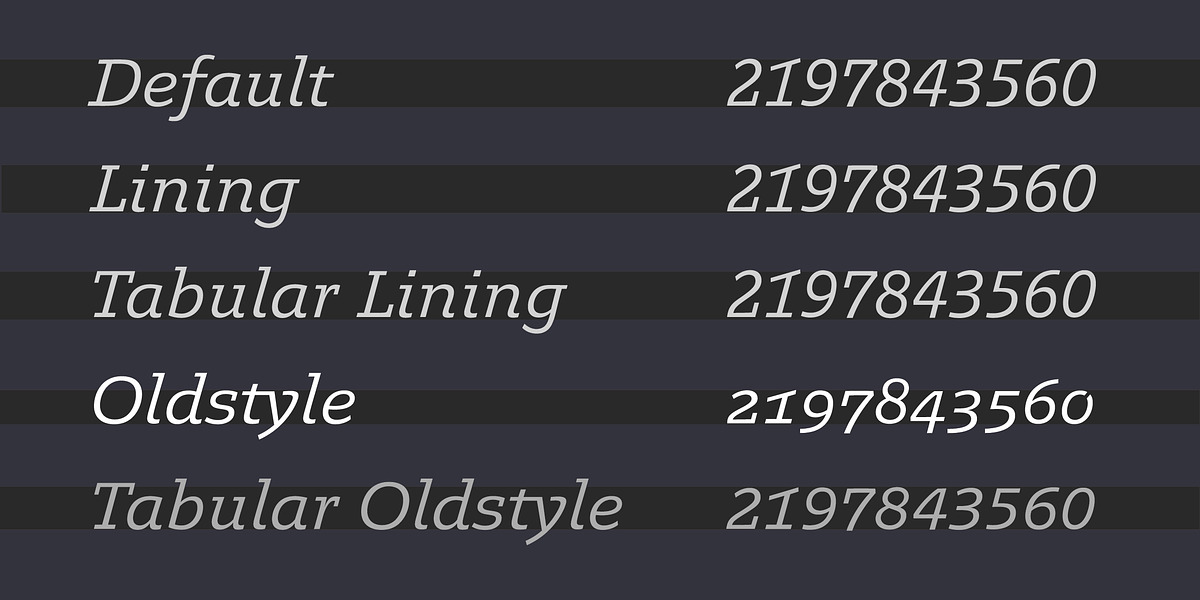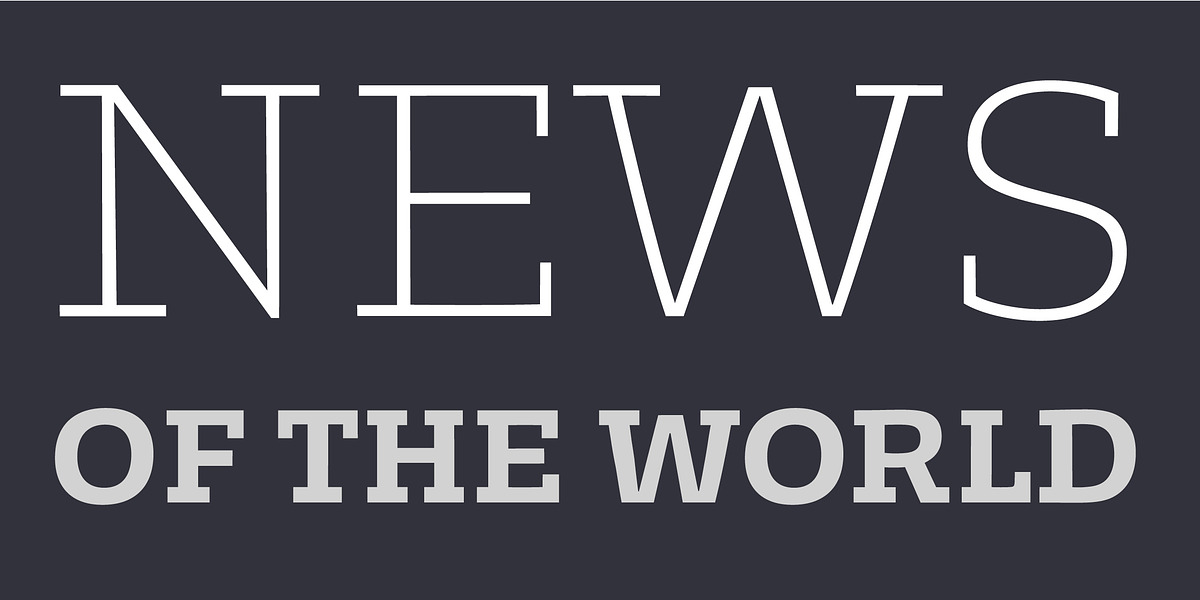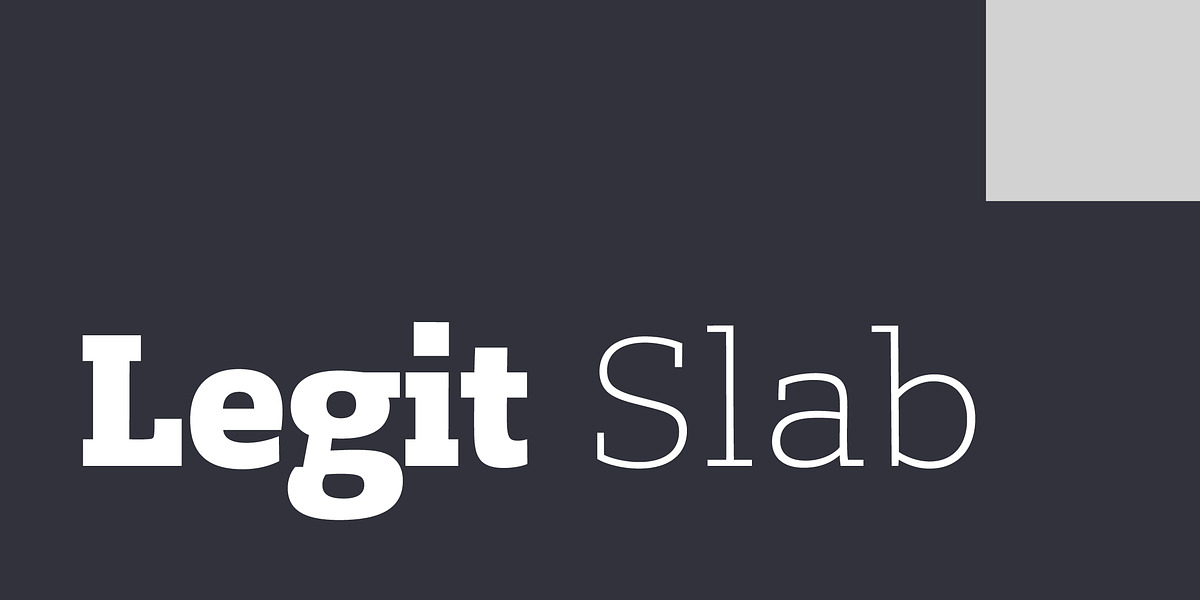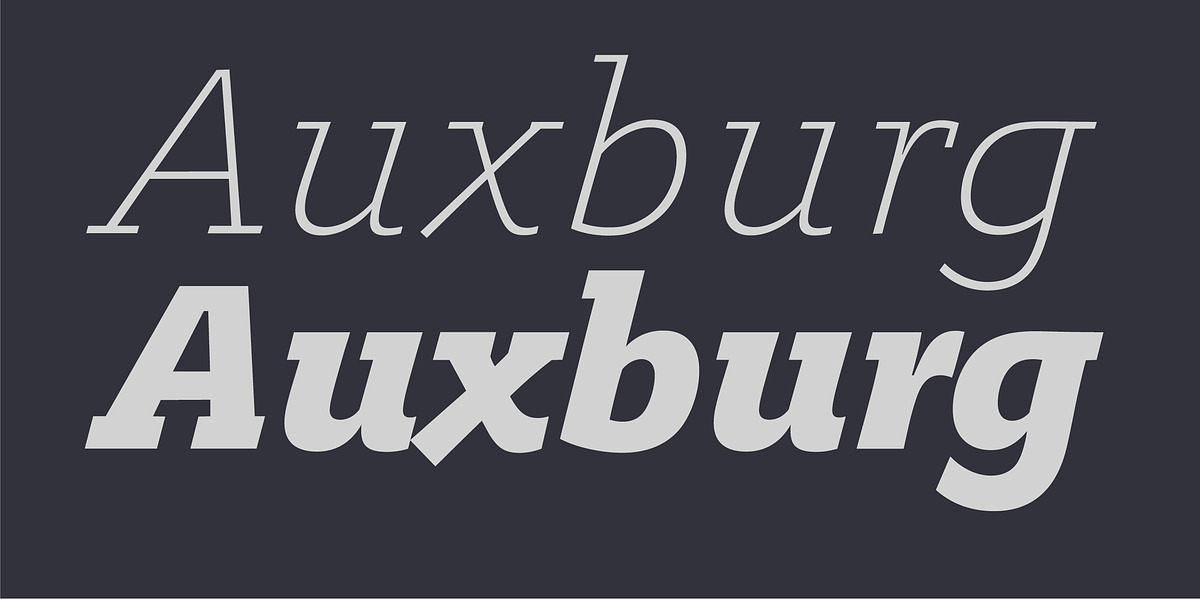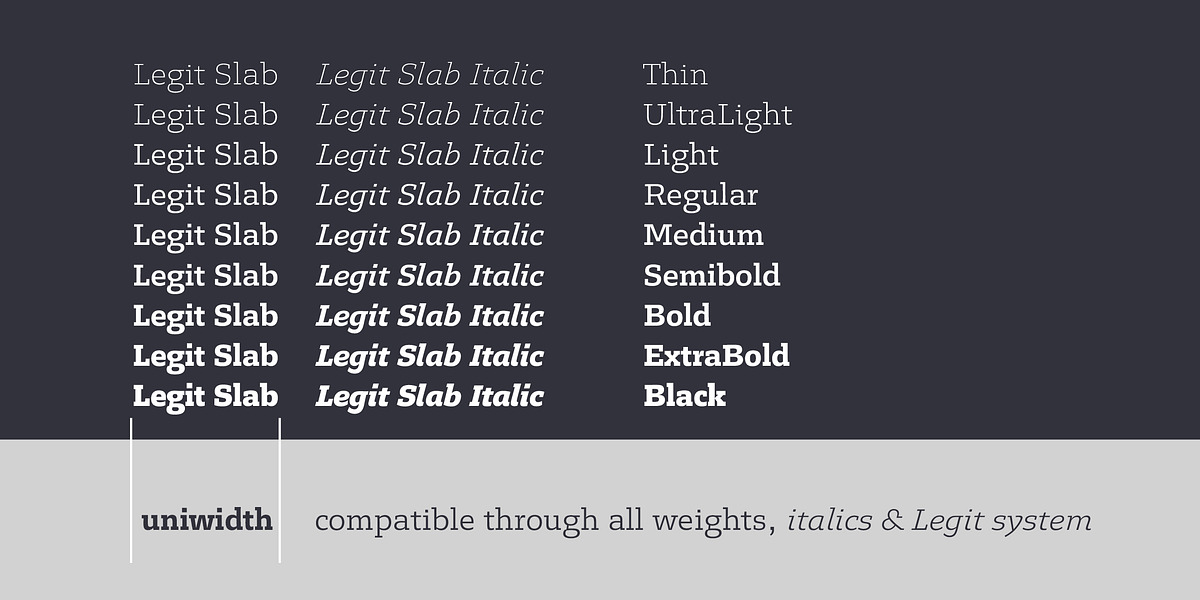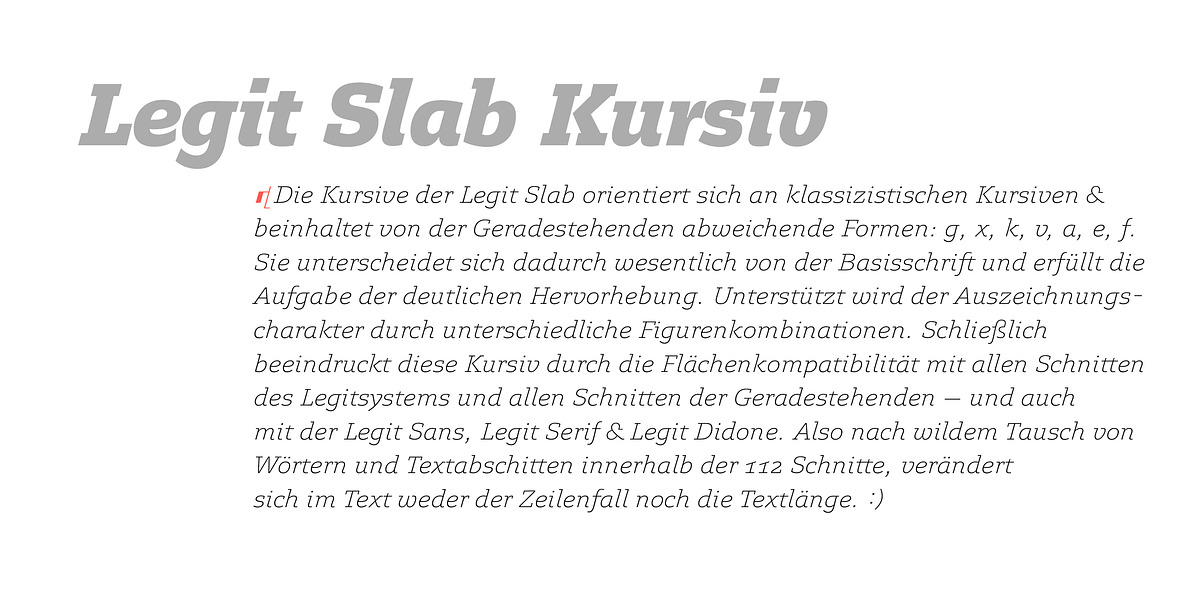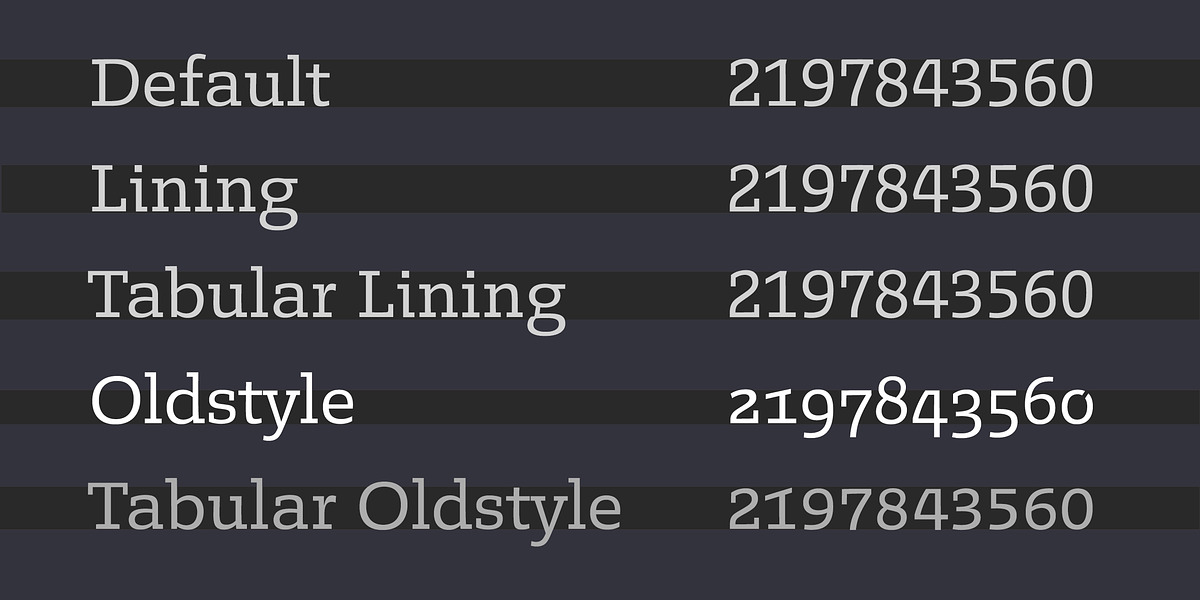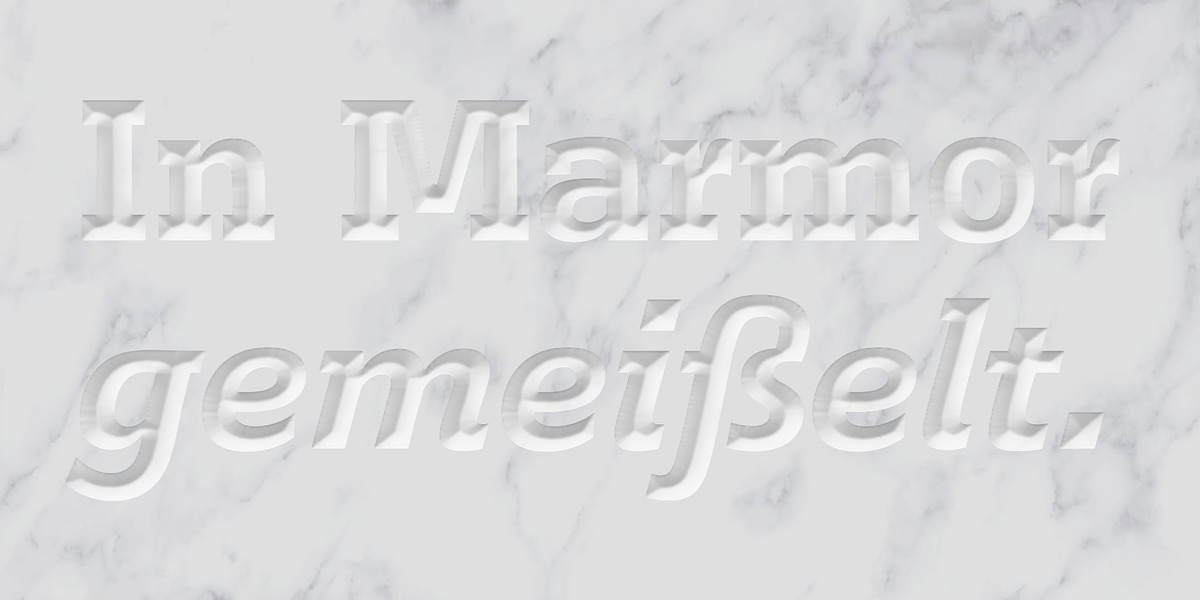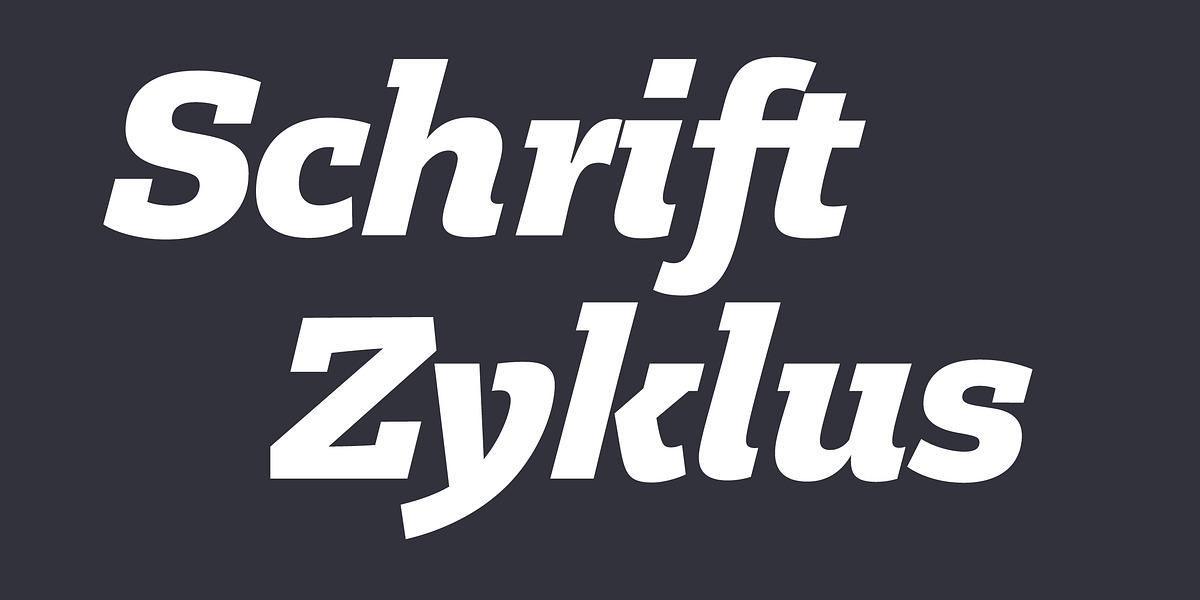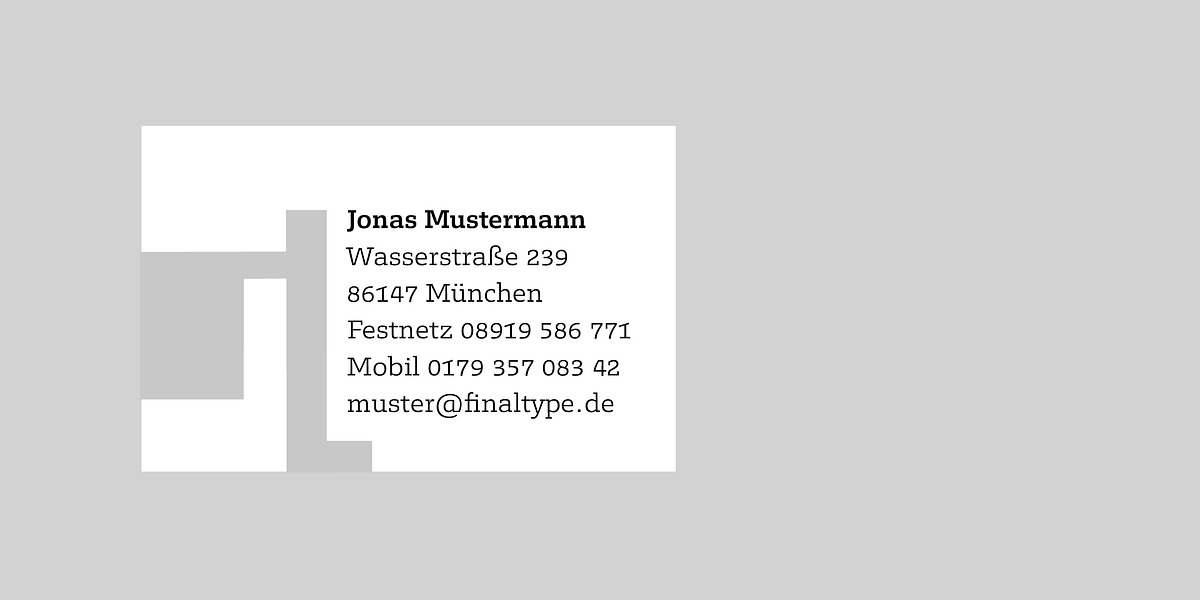
Legit Slab
Legit Slab is a modern slab serif typeface designed for exceptional readability in both text and display sizes. Its defining feature is the uniwidth system, ensuring all 18 styles maintain consistent width and allow for easy swapping without affecting layout. The font includes ligatures, stylistic alternates, and strong accents supporting over 36 languages.